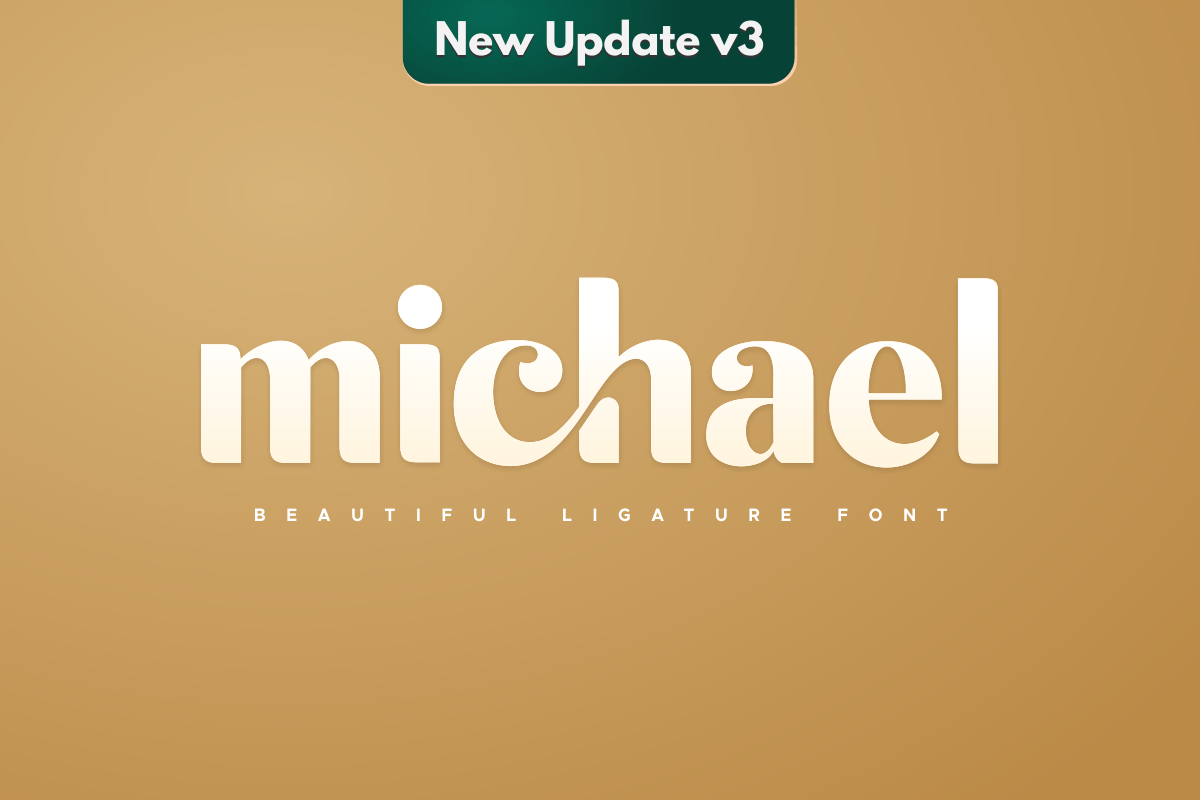
Michael
-Beautiful Ligature Font
Michael - Beautiful Ligature Font
Michael is a unique ligature font designed with an elegant and modern character. Featuring distinctive letter connections and stylish details, this typeface helps designers create memorable and sophisticated visual identities.
Perfect for logo design, branding projects, wedding invitations, fashion designs, beauty products, packaging, and editorial layouts. Michael brings a classy and premium feeling to every project that requires a creative and distinctive typography style.
With beautiful ligature combinations and carefully crafted characters, Michael allows designers to create elegant logos and unique brand presentations.
- Ligature characters